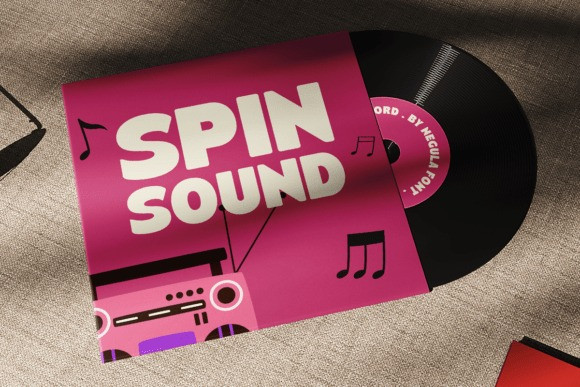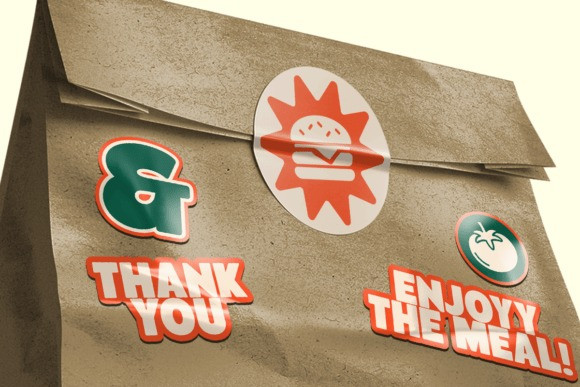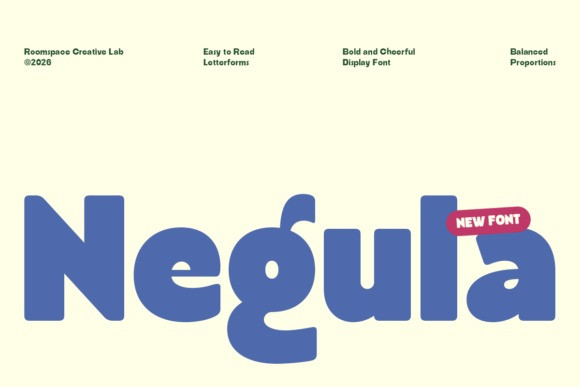
Negula Font
Negula Font is a cheerful rounded display typeface designed to create approachable and memorable branding. Its soft curves and bold construction make it ideal for food packaging, children’s products, social media graphics, logos, posters, and family-oriented businesses. Designed to help brands communicate friendliness, warmth, and modern creativity.